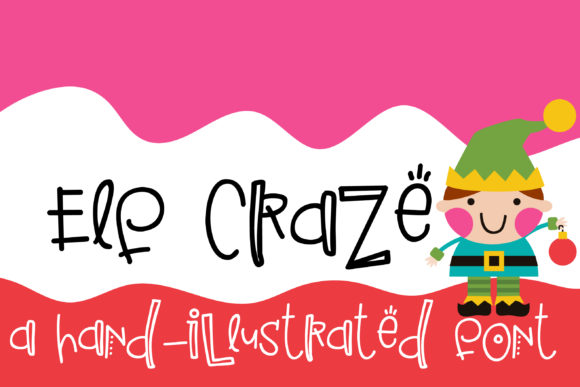
Introducing Elf Craze Font, the handwritten script that captures the magical essence of the elven realm. This enchanting font, crafted by the creative minds at Illustration Ink, is a whimsical dance of characters, each letter imbued with a personality as unique as an elf's laughter.
Journey into a world of fantasy and wonder, where words dance with an ethereal grace, mirroring the playful spirit of mischievous sprites. Let your imagination soar as you weave tales of adventure, friendship, and enchantment, using this font that's as captivating as an elf's whisper.
With Elf Craze Font, you hold the key to unlocking a world of creativity, where your words transform into works of art. Whether you're designing logos that shimmer with magic, creating marketing materials that spark curiosity, or crafting social media posts that dance with enchantment, this font is your gateway to a realm of endless possibilities.
Step into the realm of the elves, where letters twinkle like stars and words flow like a gentle stream, carrying your message with a charm that's irresistible. Let Elf Craze Font be your muse, guiding you to create designs that captivate and inspire, leaving your audience spellbound by your words.